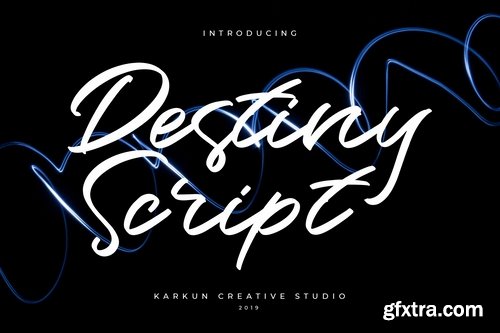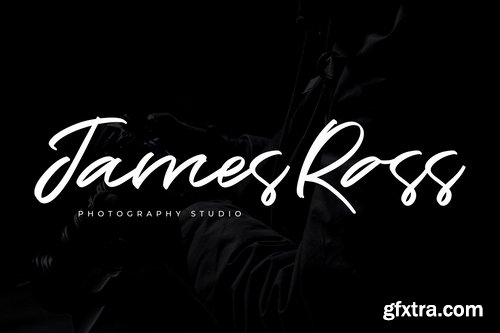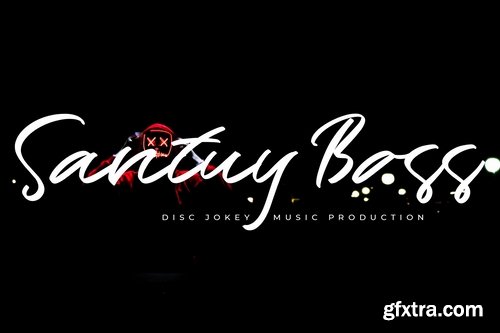
Destiny is a modern high-class script font typeface. It includes all basic glyphs with Multilingual characters. This font will pair beautifully with the altenates characters, signature or handwriting style. Destiny is perfect for titles, magazines headings, logo’s, presentations, posters, name card, web layouts, invitations, books, branding, and nearly any creative design.